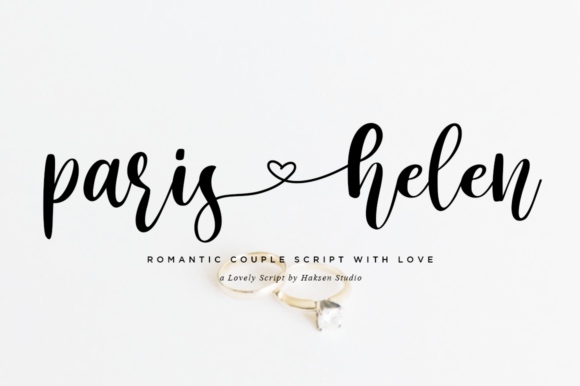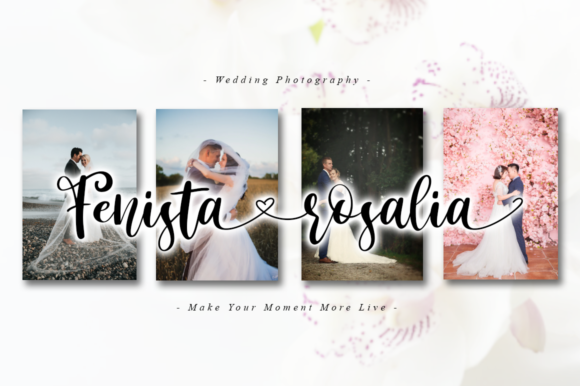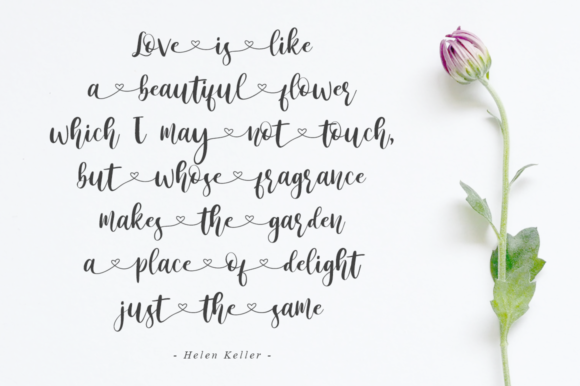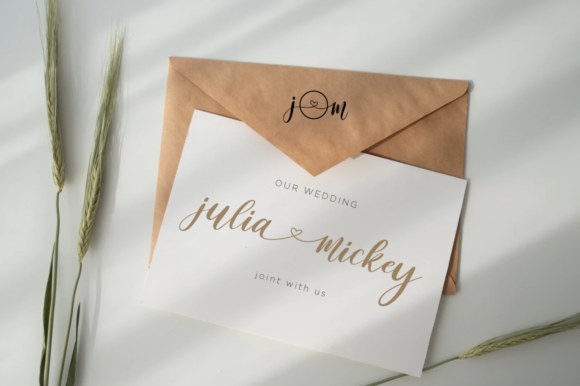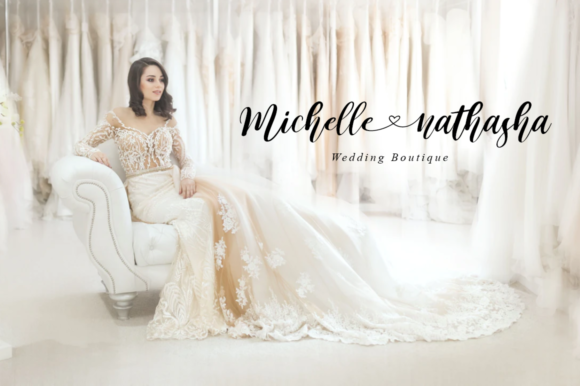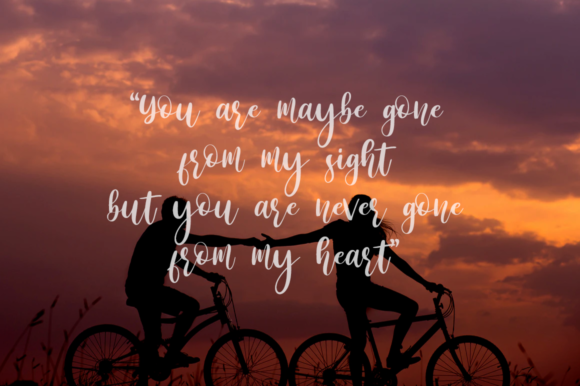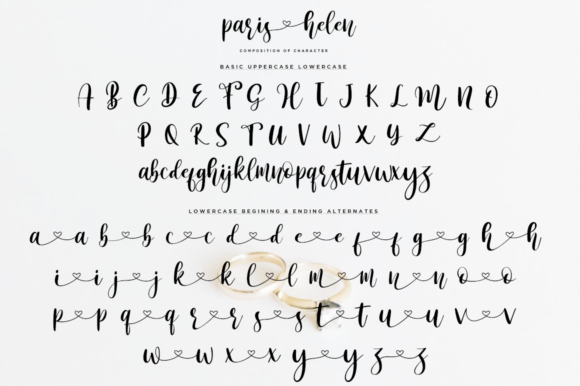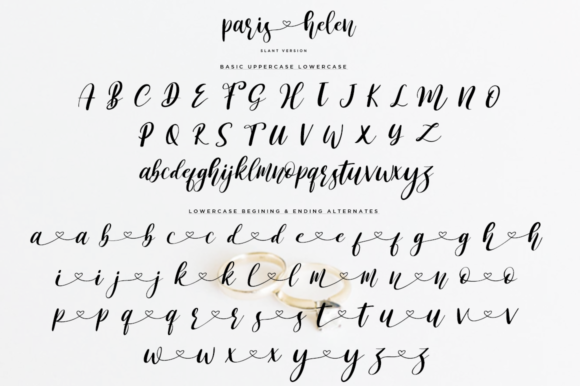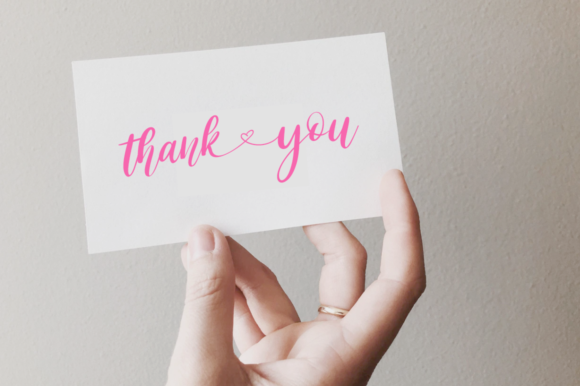
Paris Helen Font
About Paris Helen Font
Paris Helen is a friendly and modern script font with a unique style. It will add a romantic touch to any crafting project!